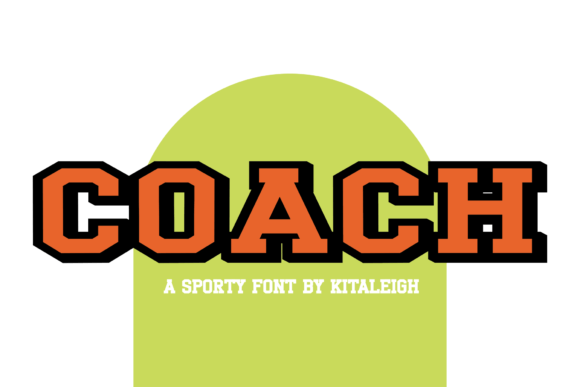
Introducing Coach Font: The Ultimate Choice for Bold and Modern Headlines
In the world of typography, fonts play a crucial role in conveying the tone and personality of a brand or design. When it comes to creating a lasting impression, a well-crafted font can make all the difference. This is where Coach Font comes into play – a sleek and bold serif font designed to make a statement. With its thick, blocky letterforms paired with a subtle drop shadow, Coach Font gives your headlines a strong and modern feel that’s hard to ignore.
The Design and Features of Coach Font
Coach Font is a carefully crafted serif font that boasts a unique combination of thickness and subtlety. Its blocky letterforms are designed to convey a sense of strength and confidence, making it an ideal choice for sports-themed designs, headlines, and titles. The subtle drop shadow adds a touch of sophistication and depth to the font, giving it a modern and edgy feel.
One of the standout features of Coach Font is its versatility. Whether you’re working on a sports-themed project, a bold advertising campaign, or a modern branding initiative, this font is sure to deliver. Its clean lines, precise lettering, and bold typography make it easy to read and understand, even at smaller sizes.
The Benefits of Using Coach Font
So, why choose Coach Font for your next project? Here are just a few benefits of using this powerful font:
- Instant Impact: Coach Font is designed to grab attention and make a lasting impression. Its bold and modern design ensures that your headlines and titles stand out from the crowd.
- Versatility: Whether you’re working on a sports-themed design, a corporate branding project, or a creative advertising campaign, Coach Font is the perfect choice.
- Easy to Read: Despite its bold design, Coach Font is easy to read and understand, even at smaller sizes.
- Customizable: With its clean lines and precise lettering, Coach Font is easy to customize and modify to suit your specific design needs.
The Perfect Choice for Sports-Themed Designs
Sports-themed designs require a font that’s bold, dynamic, and attention-grabbing. Coach Font is the perfect choice for such projects, with its thick, blocky letterforms and subtle drop shadow giving it a strong and modern feel. Whether you’re designing a logo, a jersey, or a sports-themed advertisement, Coach Font is sure to deliver.
From football to basketball, baseball to hockey, Coach Font is the perfect choice for any sports-themed design. Its bold and modern design ensures that your project stands out from the crowd, while its easy-to-read typography makes it easy for fans to quickly understand the information being conveyed.
How to Use Coach Font in Your Designs
Using Coach Font in your designs is easy. Here are a few tips to get you started:
- Pair it with a clean sans-serif font: For body text, pair Coach Font with a clean sans-serif font to create a bold and modern contrast.
- Use it for headlines and titles: Coach Font is perfect for headlines and titles, where its bold and attention-grabbing design can shine.
- Experiment with colors and textures: Coach Font looks great in a variety of colors and textures. Experiment with different options to find the one that works best for your design.
In conclusion, Coach Font is a sleek and bold serif font designed to make a statement. Its thick, blocky letterforms paired with a subtle drop shadow give your headlines a strong and modern feel that’s hard to ignore. Whether you’re working on a sports-themed design, a corporate branding project, or a creative advertising campaign, Coach Font is the perfect choice. With its versatility, easy-to-read typography, and bold design, Coach Font is sure to deliver results.